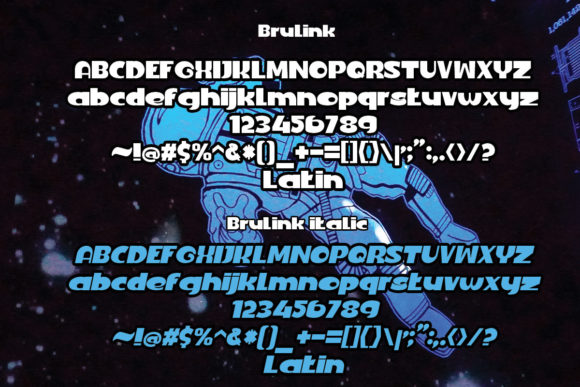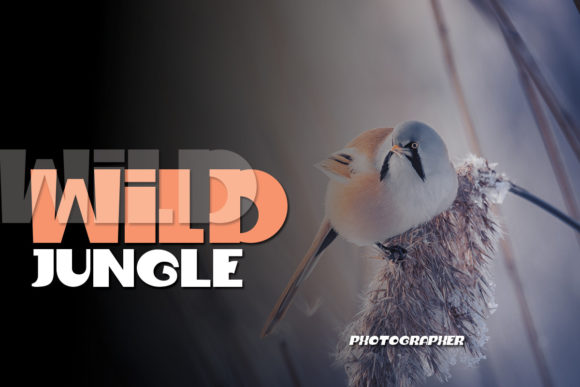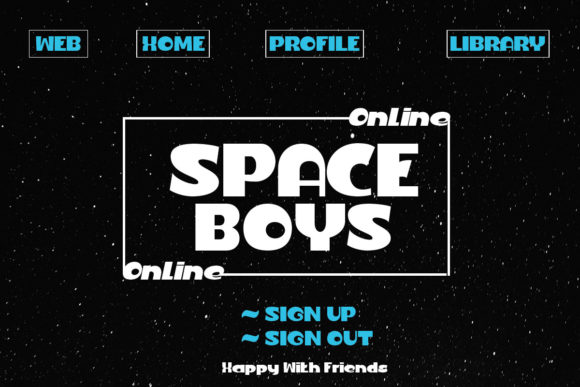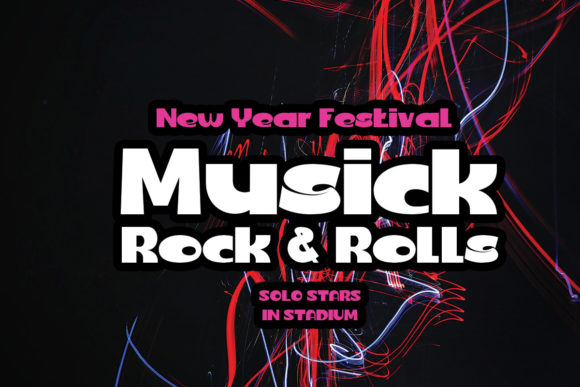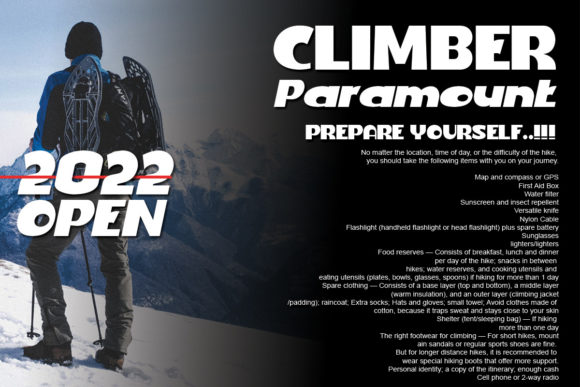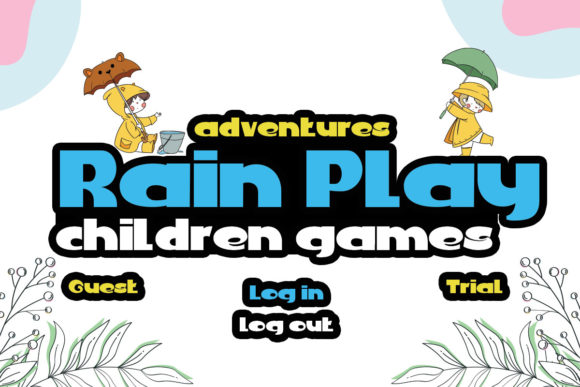
Introducing Brulink Font: The Bold and Versatile Display Font
Are you tired of using the same old fonts in your designs? Look no further than Brulink Font, a bold and thick lettered display font that’s sure to take your creations to the next level. With its unique and eye-catching style, Brulink is a wonderful asset to add to your font library, regardless of the topic or project you’re working on.
What Makes Brulink Font So Special?
Brulink Font is a bold and thick lettered display font that’s designed to make a statement. Its sturdy and robust letterforms make it perfect for headlines, titles, and other display text, while its clean and simple design ensures that it remains legible even at large sizes. Whether you’re working on a graphic design project, crafting a logo, or creating social media graphics, Brulink Font is the perfect choice.
Key Features of Brulink Font
- Bold and Thick Lettering: Brulink Font features bold and thick lettering that’s perfect for making a statement.
- Clean and Simple Design: Despite its bold style, Brulink Font has a clean and simple design that’s easy to read.
- Versatile: Brulink Font is versatile and can be used on a wide range of projects, from graphic design to crafting and DIY projects.
How to Use Brulink Font in Your Designs
Brulink Font is easy to use in a variety of design projects. Here are a few ideas to get you started:
- Graphic Design: Use Brulink Font to create bold and eye-catching headlines and titles for your graphic design projects.
- Logos: Brulink Font is perfect for creating logos that need to make a statement.
- Social Media Graphics: Use Brulink Font to create eye-catching social media graphics that will grab the attention of your followers.
- Crafting and DIY Projects: Brulink Font is also perfect for crafting and DIY projects, such as making signs, banners, and other decorative items.
Tips for Getting the Most Out of Brulink Font
Here are a few tips for getting the most out of Brulink Font:
- Experiment with Different Sizes: Brulink Font looks great at a variety of sizes, so don’t be afraid to experiment to find the perfect size for your project.
- Pair with Other Fonts: Brulink Font pairs well with a variety of other fonts, so try pairing it with some of your other favorite fonts to create a unique look.
- Use it Sparingly: Because Brulink Font is so bold, it’s best to use it sparingly to avoid overwhelming your design.
In conclusion, Brulink Font is a bold and versatile display font that’s perfect for designers and crafters looking to add some excitement to their projects. With its unique and eye-catching style, Brulink Font is sure to become a staple in your font library. So why wait? Download Brulink Font today and start creating amazing designs!